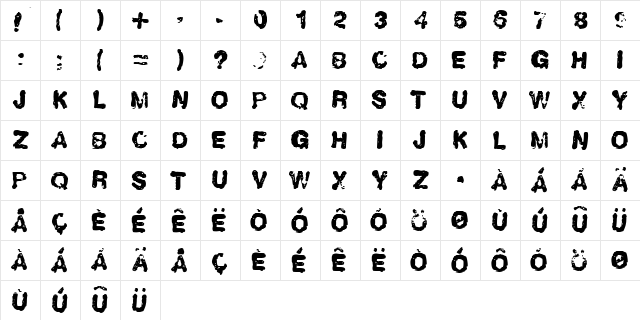
LLHumboldt Regular Free Font
LLHumboldt Regular
Design Context for LLHumboldt
LLHumboldt is a composed and adaptable typeface that performs quietly and consistently across a wide range of design contexts. Its bold stroke weight gives it real presence on the page.